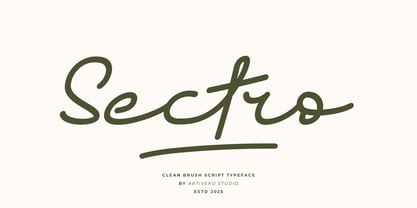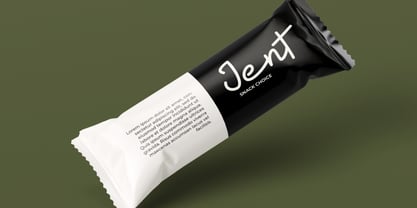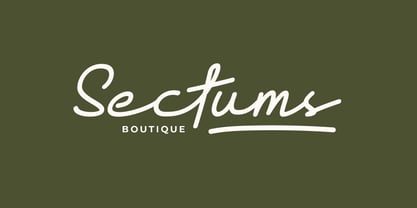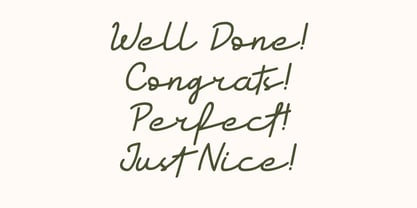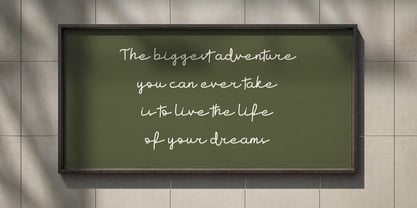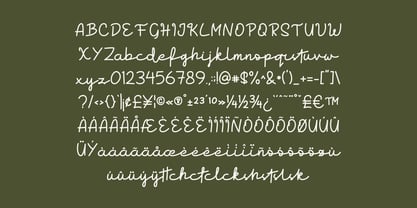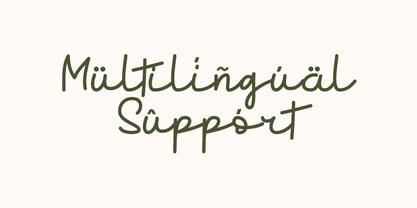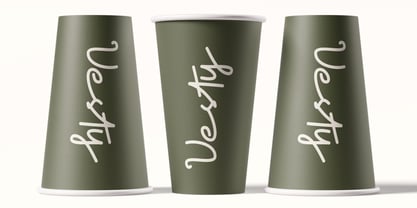
Sectro
The Sectro Font Family was designed by Iwan Alwan and published by Artiveko. Sectro contains 2 styles and family package options. More about this family
Sectro is a refined script monogram line font designed to express elegance through simplicity. Featuring thin, flowing strokes and graceful handwritten curves, Sectro delivers a clean and sophisticated look ideal for monograms, logos, wedding stationery, invitations, personal branding, and luxury packaging. Its line-style construction creates a modern minimalist aesthetic while preserving the charm of classic script typography. Sectro is perfect for initials, signature logos, embossing, foil stamping, and delicate design applications where subtlety and refinement matter most. The font includes uppercase and lowercase characters, numerals, punctuation, and multilingual support, making it flexible for a wide range of decorative and branding needs. Add timeless elegance to your designs with Sectro — a script monogram line font crafted for refined, graceful, and minimalist visual identities.